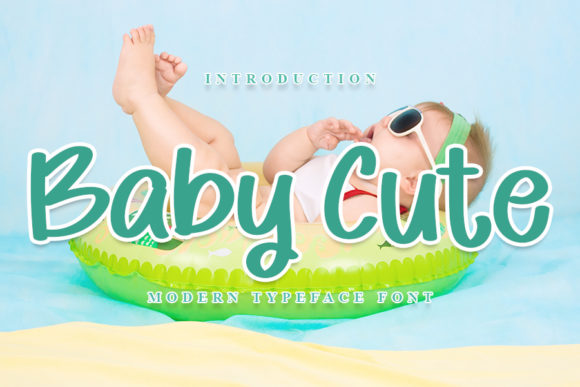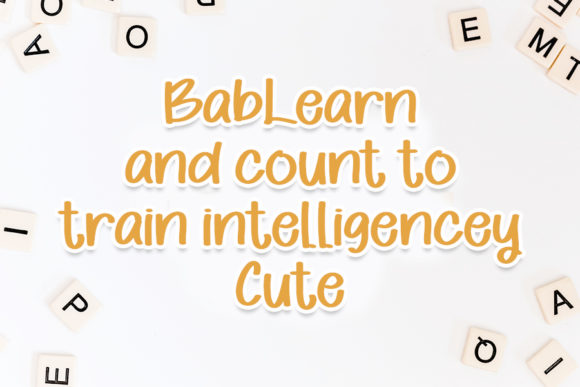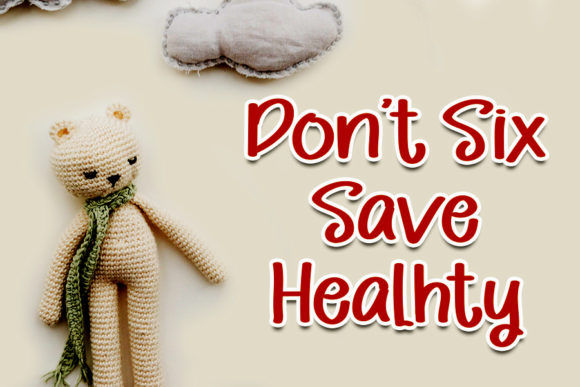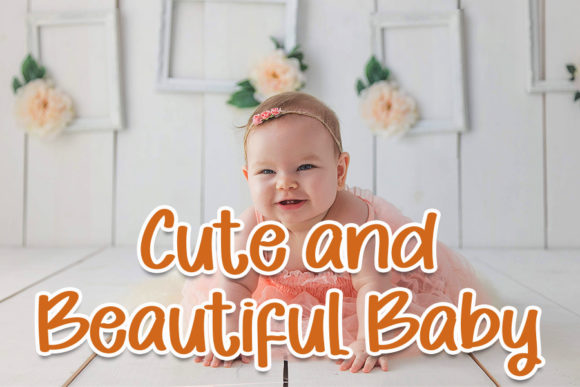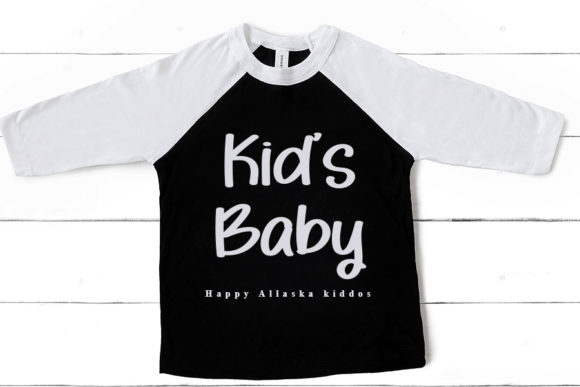
Baby Cute Font
About Baby Cute Font
Baby Cute is a beautiful and sweet handwritten font. Casual and whimsical, this font will fit a variety of designs. Add it confidently and you won’t regret it.